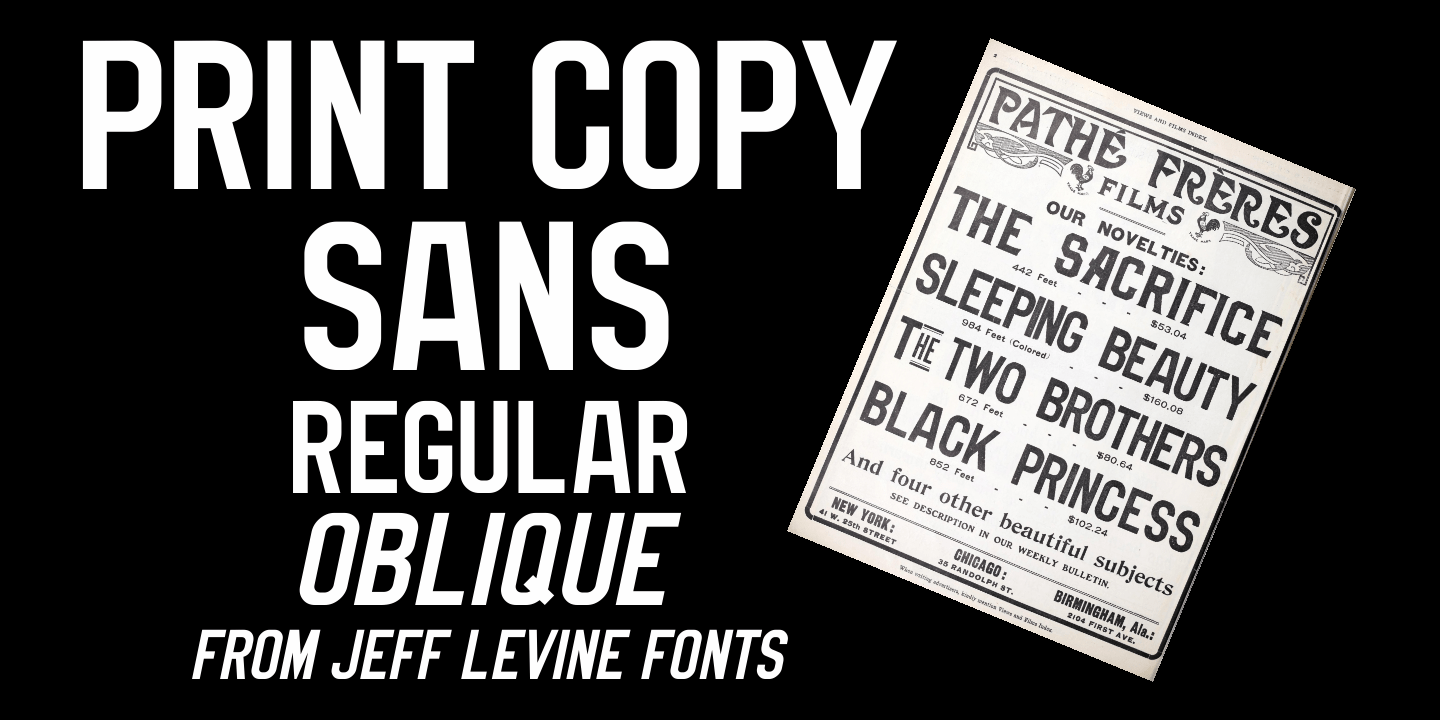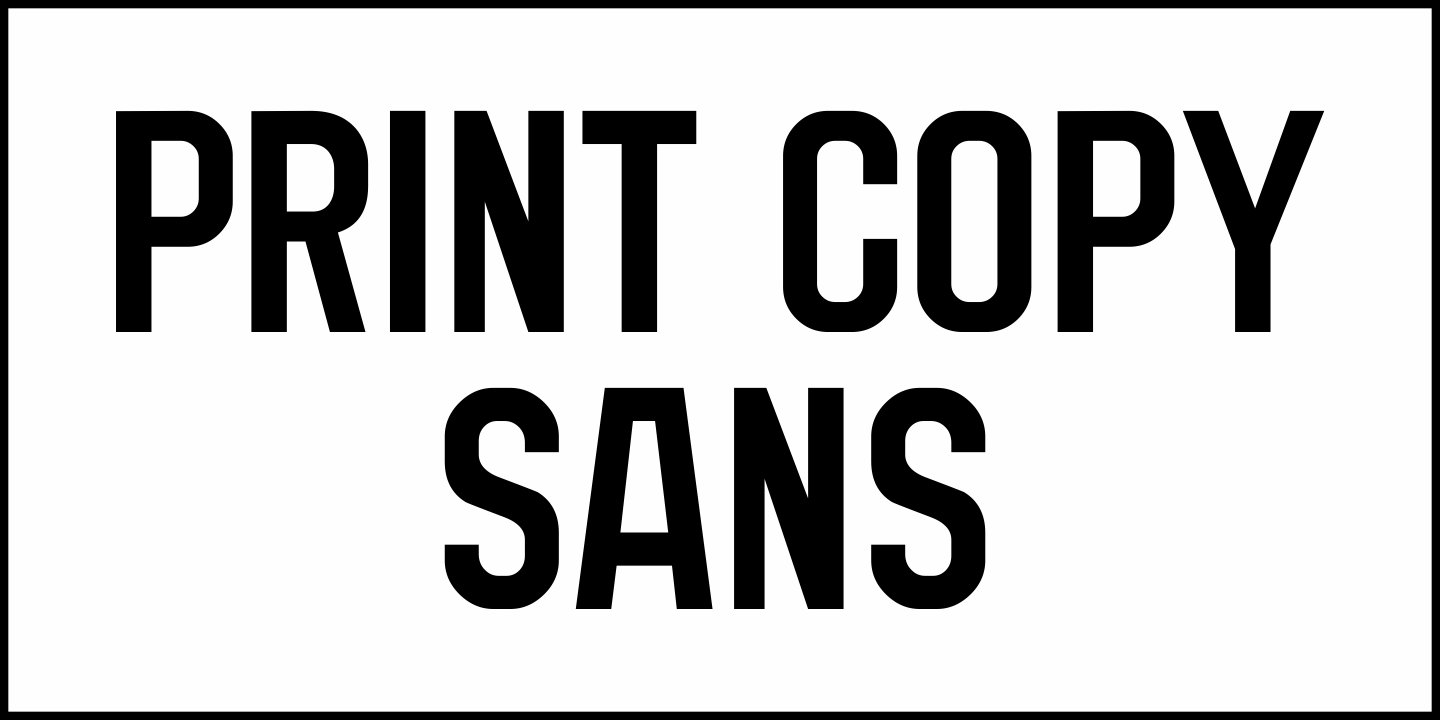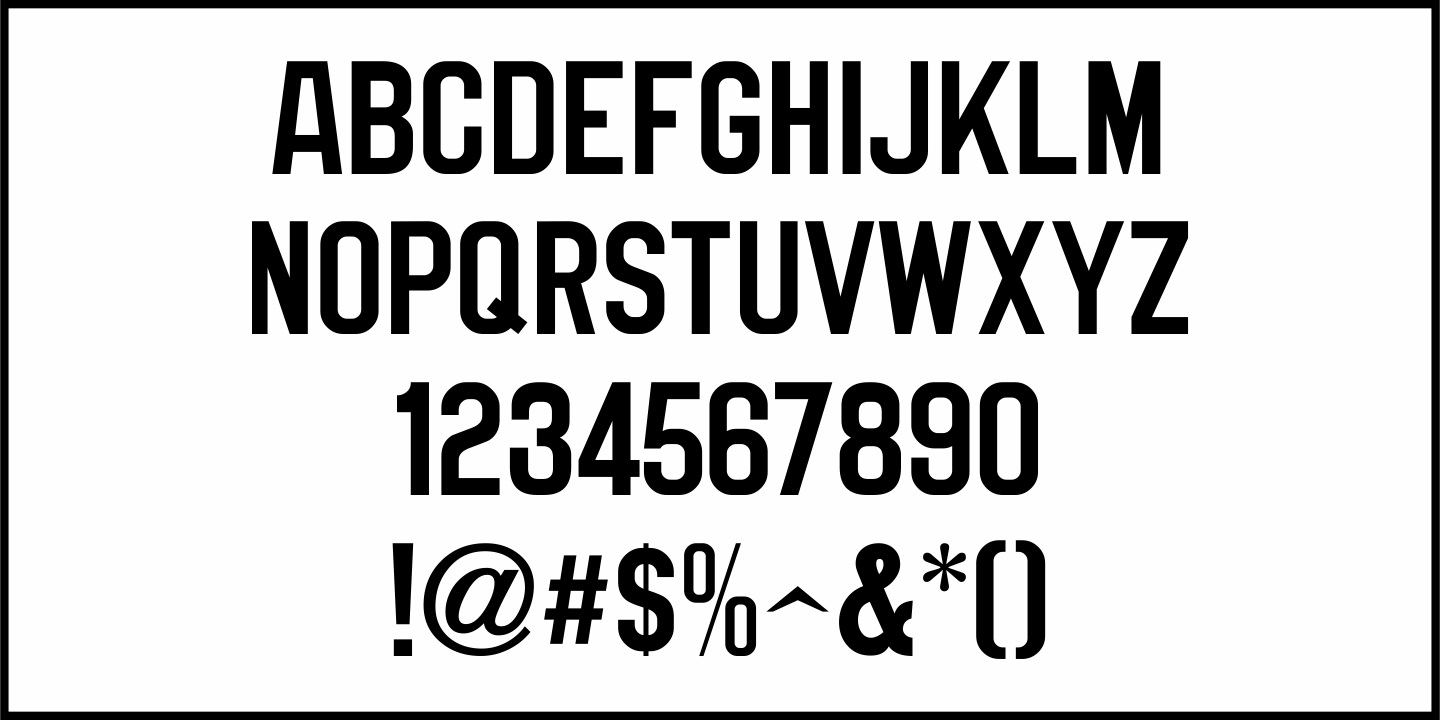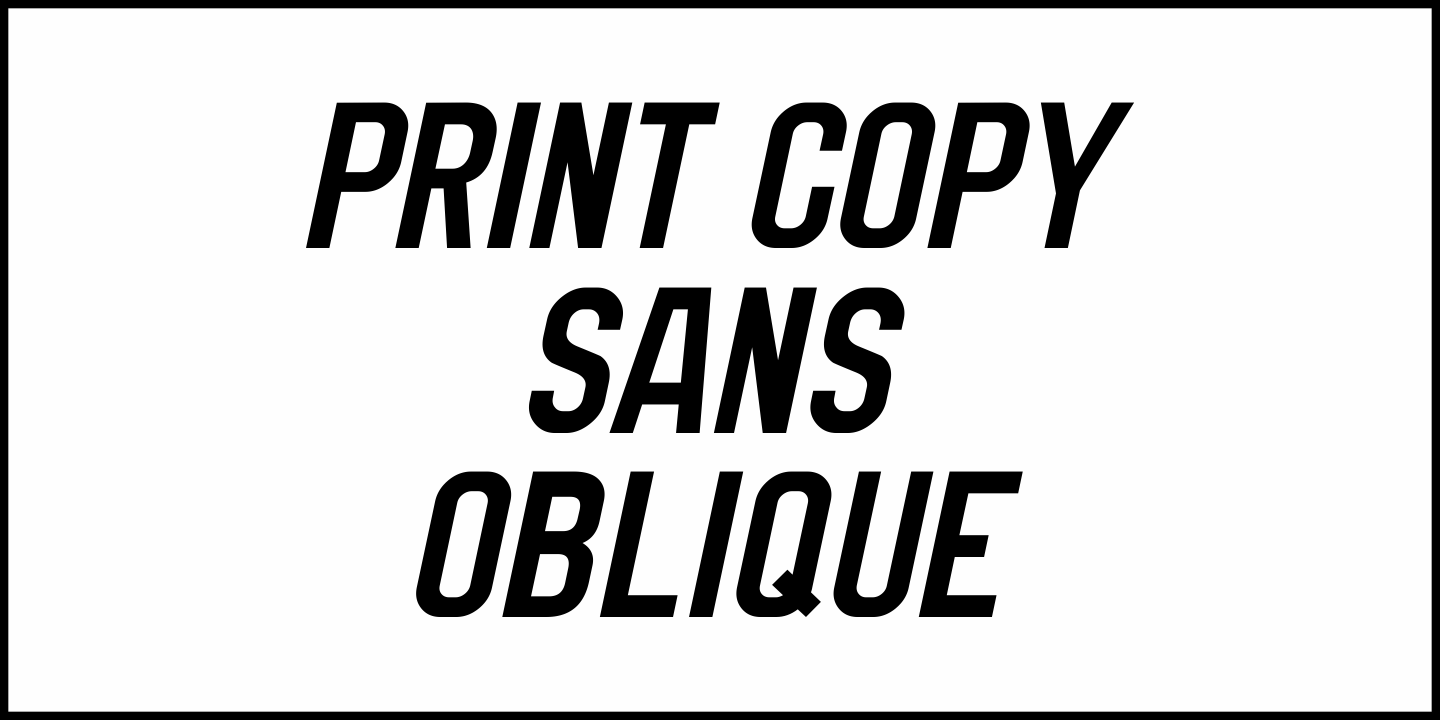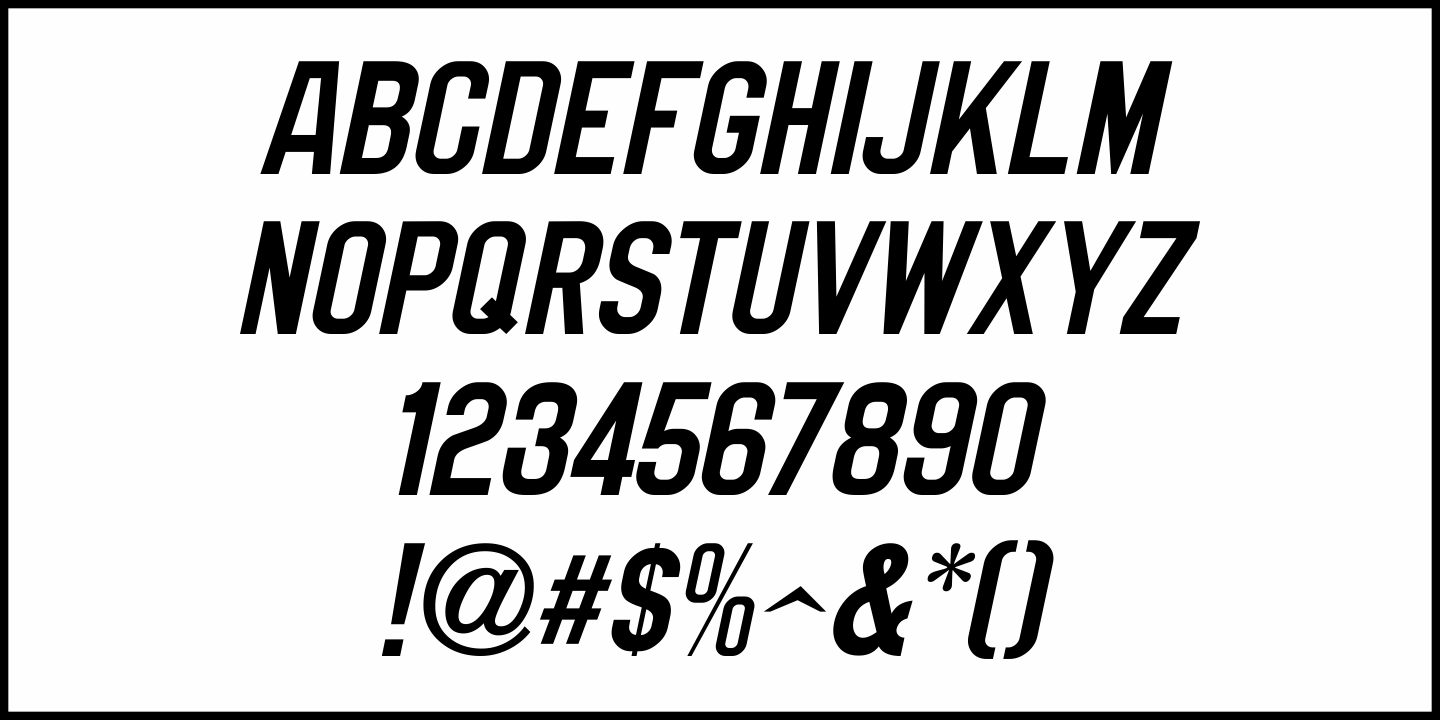
Print Copy Sans
Various Pathe film ads found within the pages of the 1908 edition of Views and Film Index were set in a sans serif metal type face popular around the turn of the last century.
This is now available digitally as Print Copy Sans JNL in both regular and oblique versions.